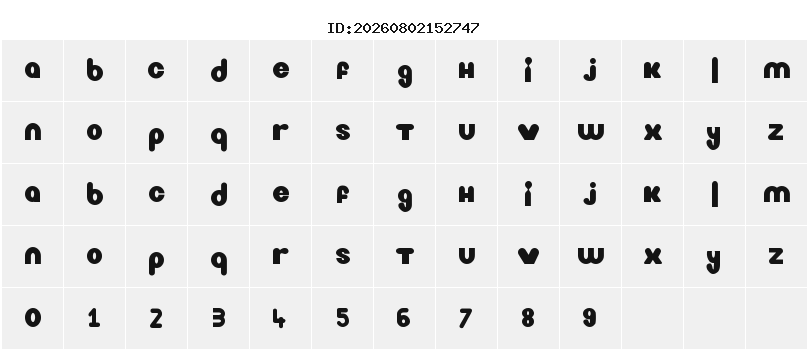
• Font Name: nickelodeon
nickelodeon.ttf is a modern, elegant sans-serif font designed for ultimate readability and visual harmony. Perfect for branding, headlines, web design, and print materials.